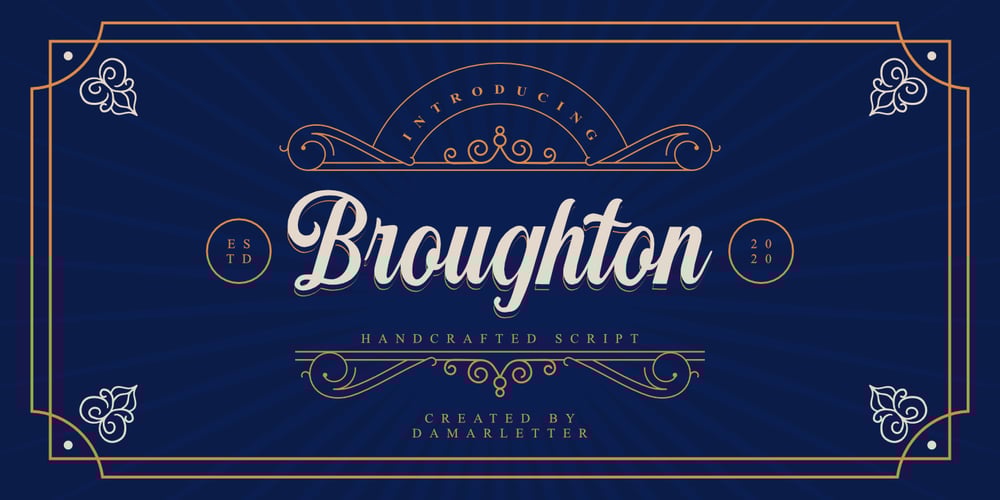
Broughton Font Family was designed by Ardian Nuvianto and published by Ardian Nuvianto. Broughton contains 1 styles and family package options. Hello thereHere is my new font Broughton.Broughton is consisting of a fashionable handbrush-style script make looks elegant, classy and touch of luxury and stylish.This font was created to look as close to a natural handwritten script as possible by including 9 ligatures.Broughton is perfect for brand design, barbershop logo, branding projects, logo, wedding designs, social media posts, advertisements, product packaging, product designs, label, photography, watermark, invitation, stationery and anything that you want.Here is that you get:Broughton font fileMore than 230 of glyphs9 Standard LigaturesWorks on PC & MacSimple installationsSupports multilinguageAccessible in the Adobe Illustrator, Adobe Photoshop, Adobe InDesign, even work on Microsoft Word.PUA Encoded Characters – Fully accessible without additional design software.Drop me message if you have any questions.Happy CreatingThanks